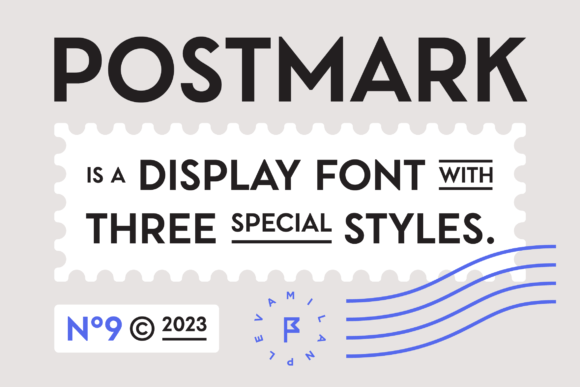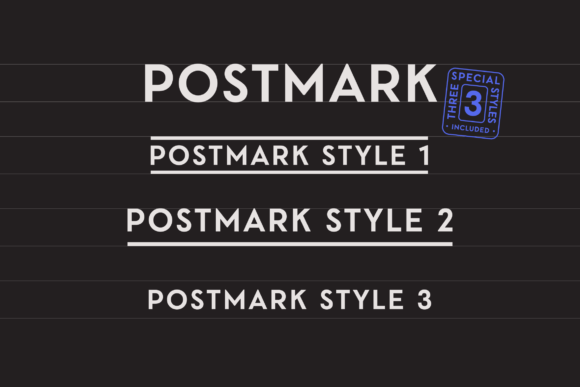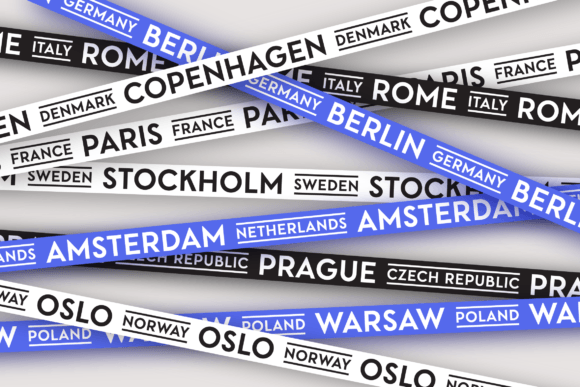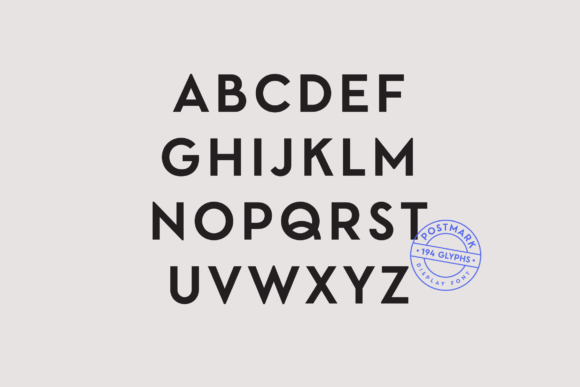
Postmark Font: A Clean & Modern Display Font for Logo Design
About the Postmark Font
Get ready to be inspired by Postmark Font, a fresh and dynamic typeface for modern creators. Postmark is a clean geometric display font with one basic and three special styles.
Special styles were created to complement the main font and to differentiate words or sentences. Postmark is ideal for headlines, headers, logos, labels, packaging, magazines, invitations, etc.
Postmark’s geometric structure and clean lines lend it a modern, bold personality, making it highly effective for headlines, logos, and short impactful statements in branding materials and packaging. It excels in applications demanding strong visual presence, such as posters or magazine covers. However, its less-than-optimal x-height and limited character set make it unsuitable for body text or lengthy paragraphs. Avoid using it in UI contexts requiring high readability at smaller sizes.
Pairing Postmark with a clean sans-serif like Open Sans for body copy provides excellent contrast and readability. For a more refined look, consider a classic serif font such as Garamond or a subtle script like Lora to soften its geometric edge, especially in invitations or luxury branding.
The font’s inherent boldness makes it a good fit for brands projecting confidence and modernity, such as tech companies, architectural firms, or high-end product lines. Avoid using it for projects requiring a playful or handwritten feel.
Postmark Font Usage Examples
Postmark Font Example